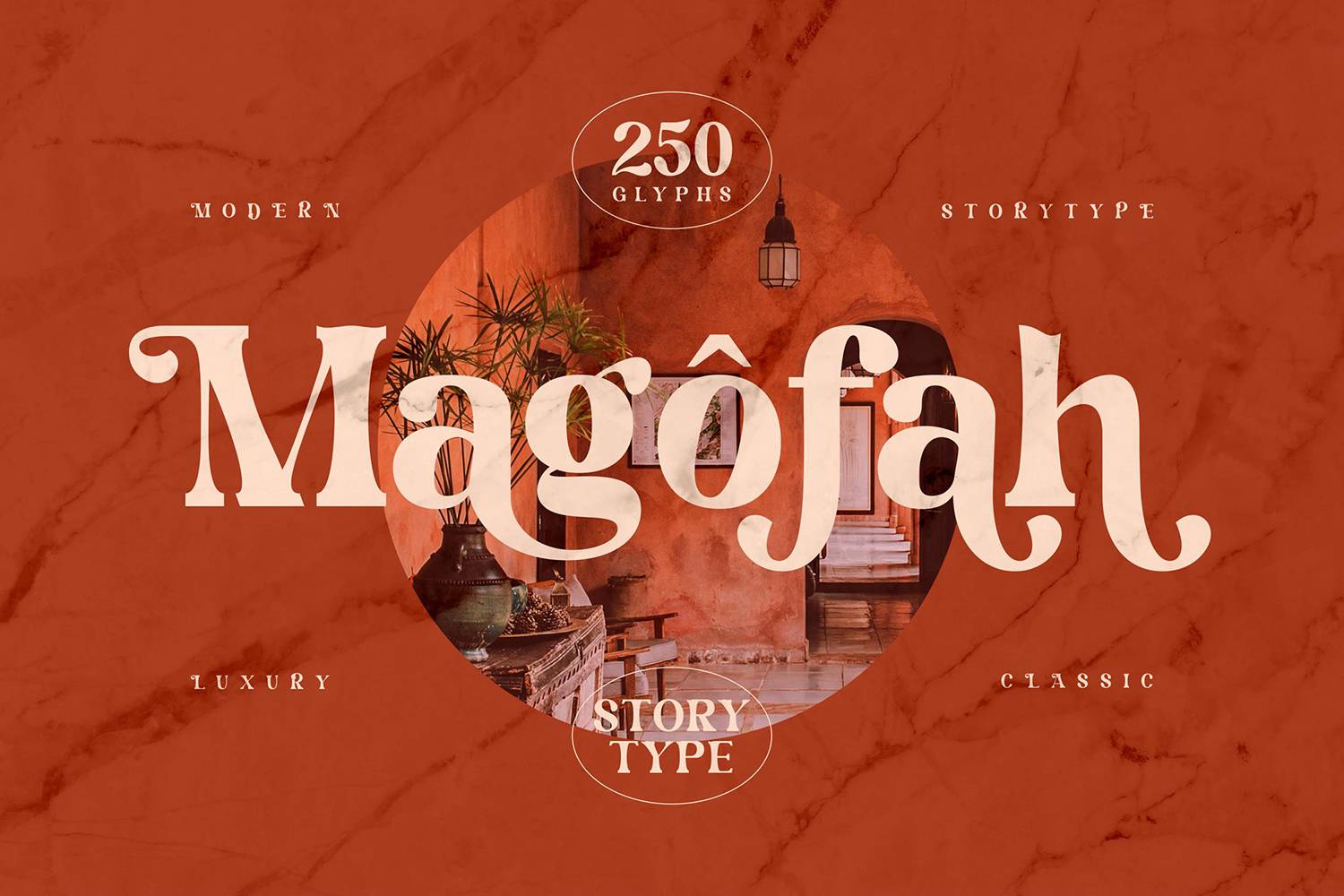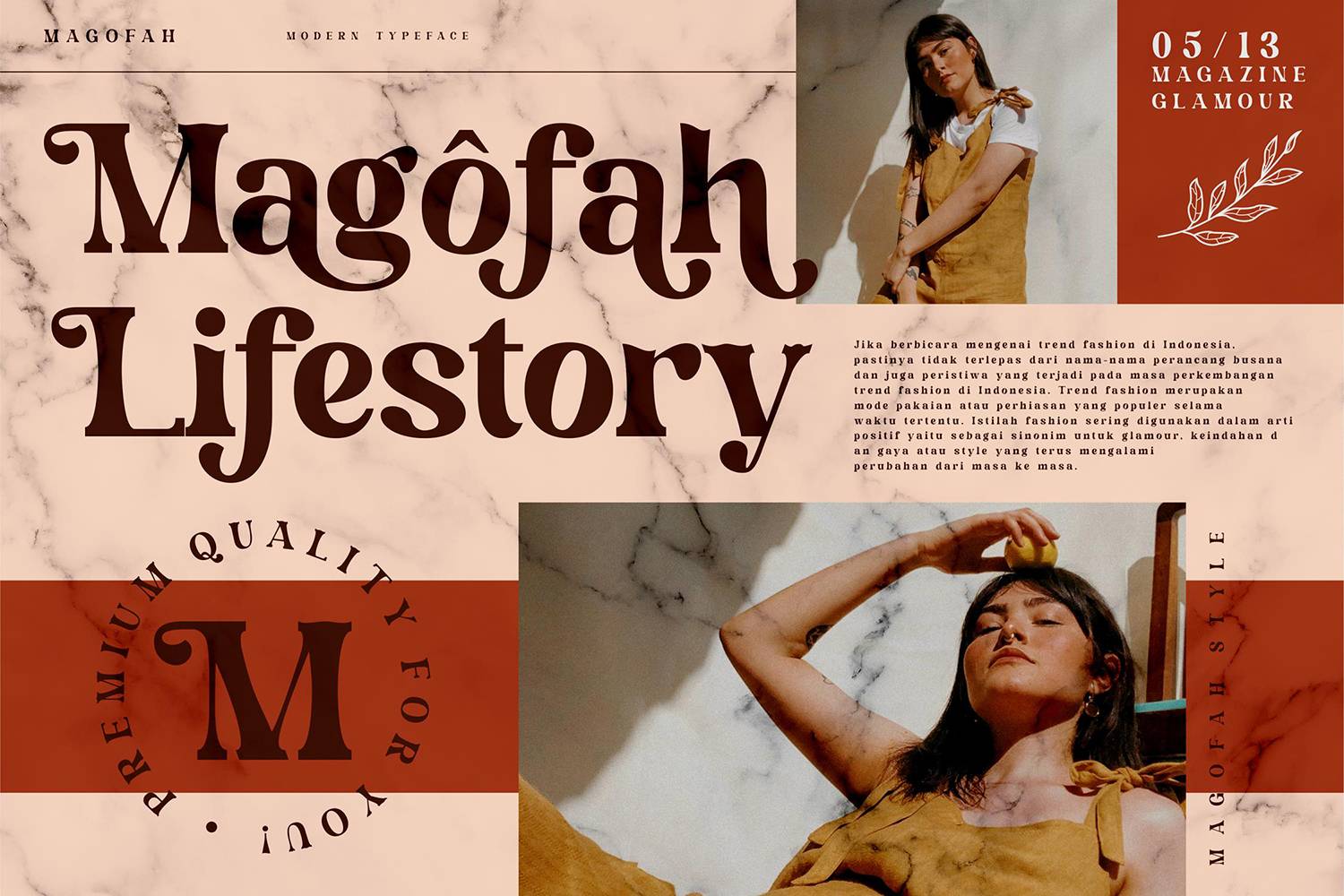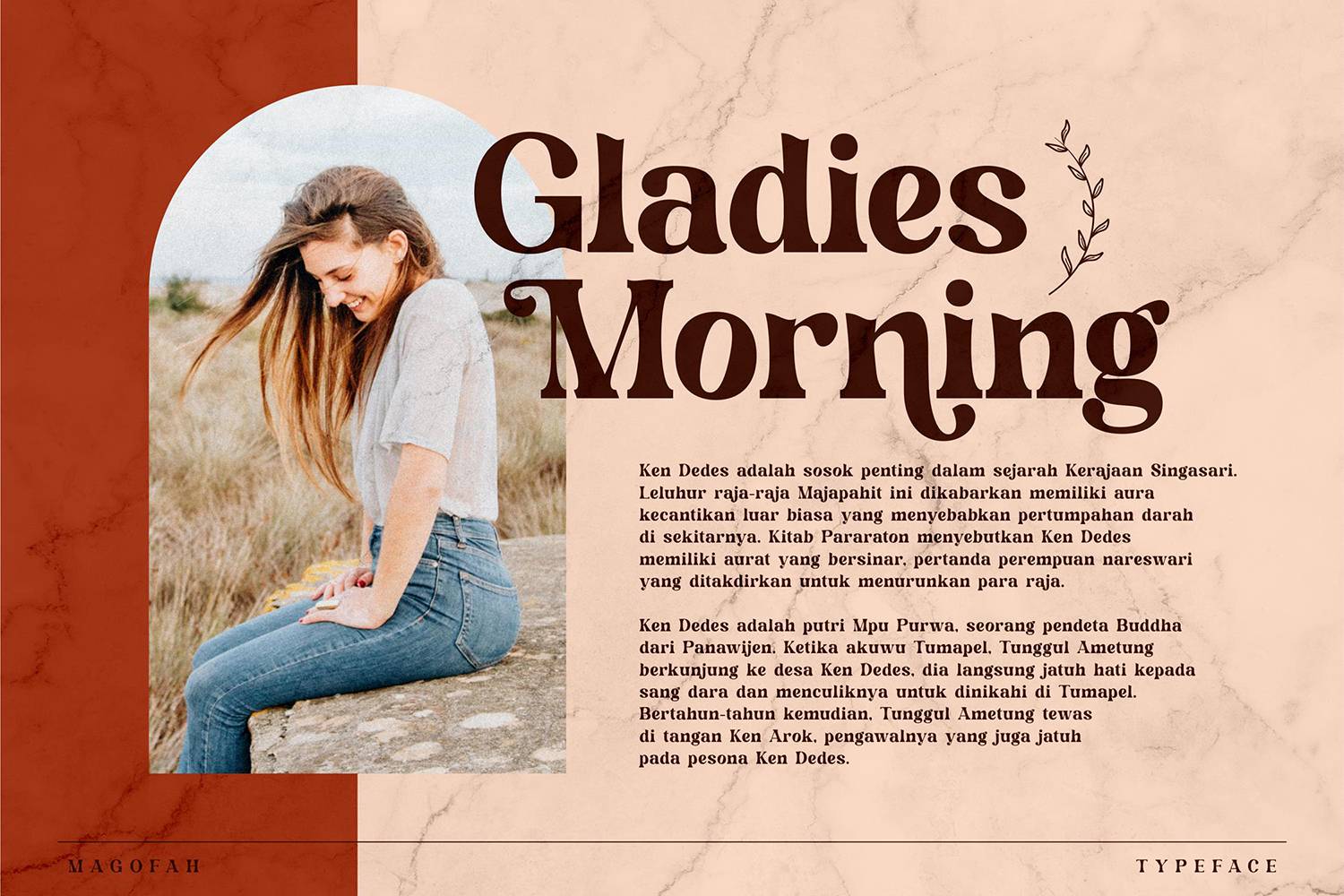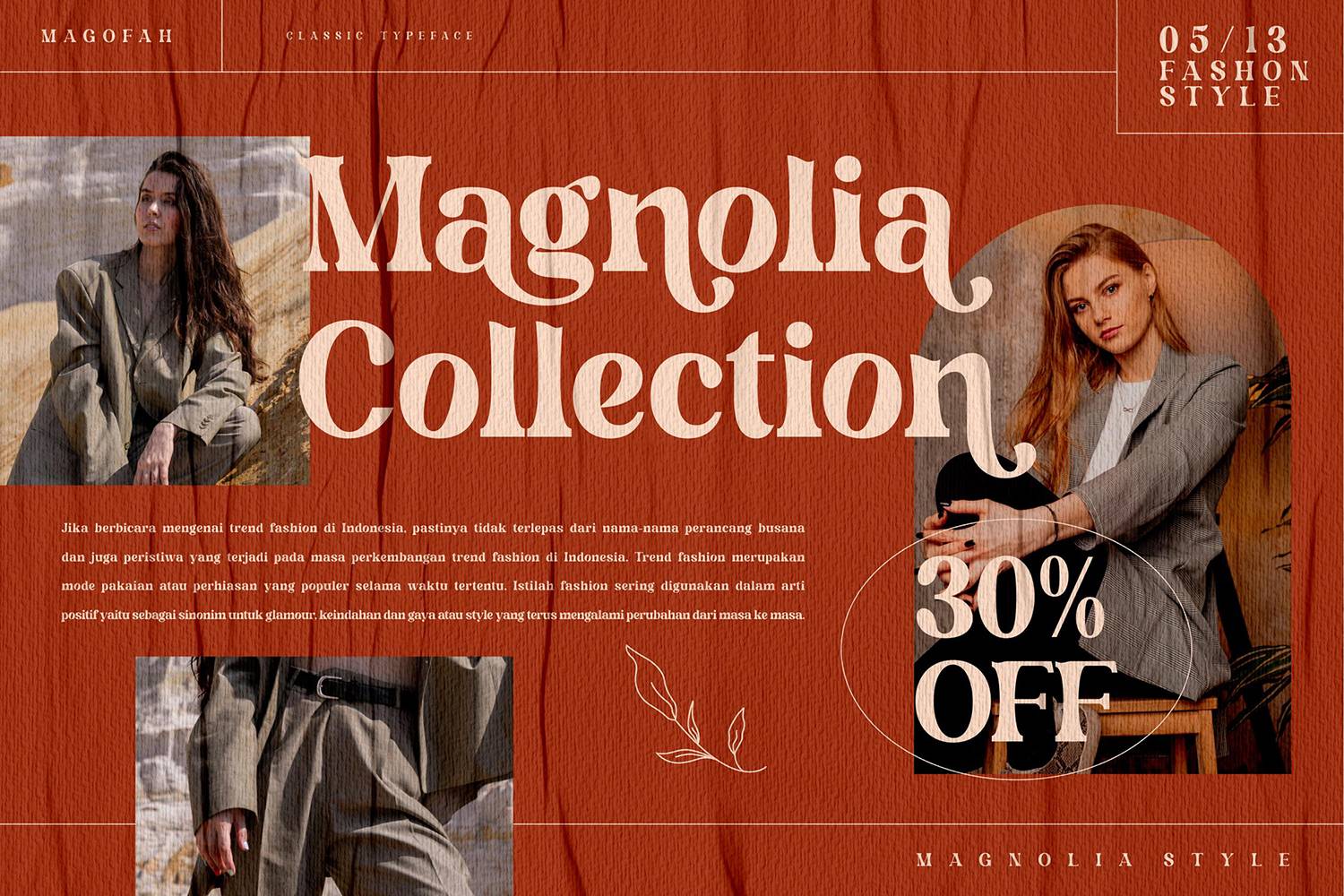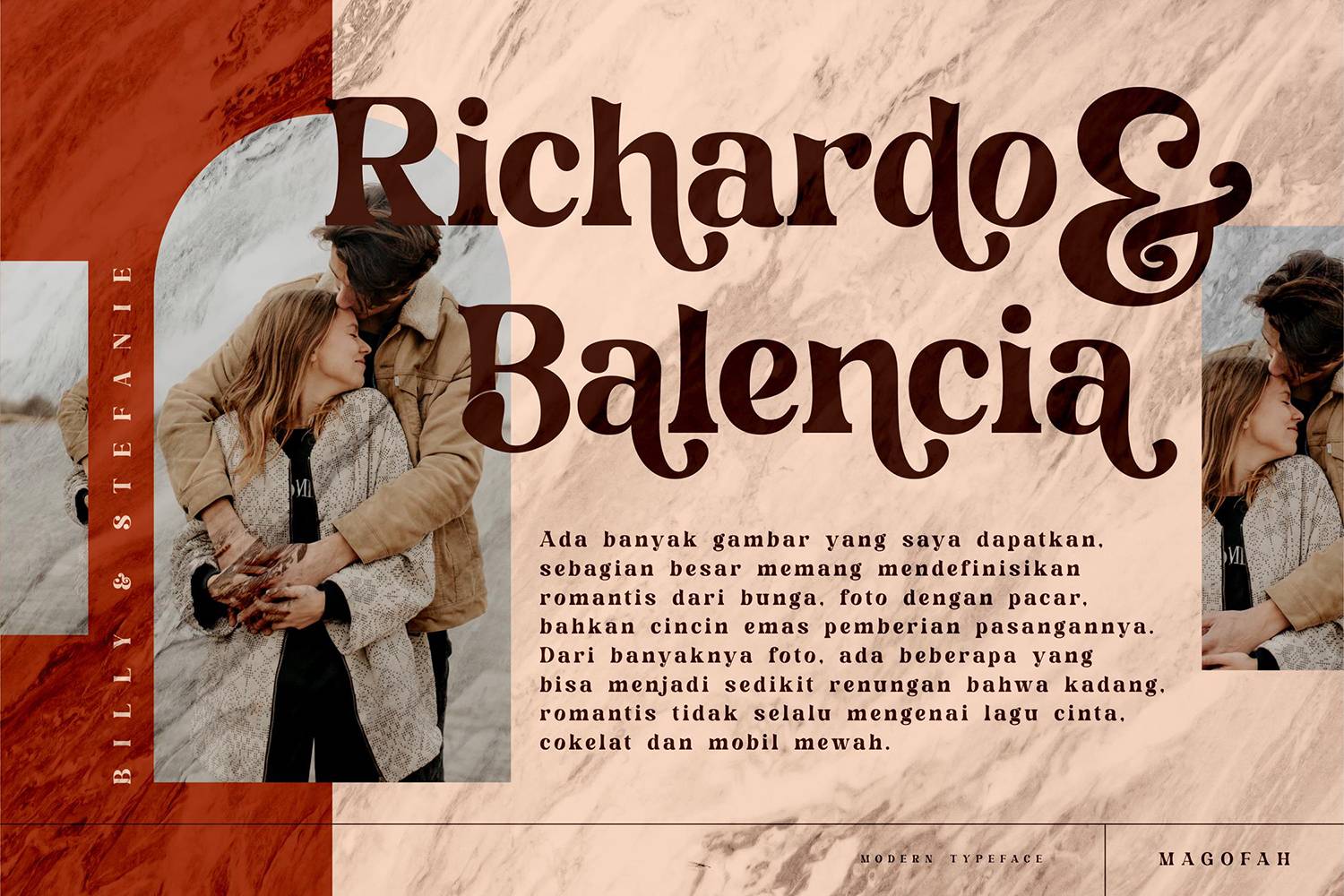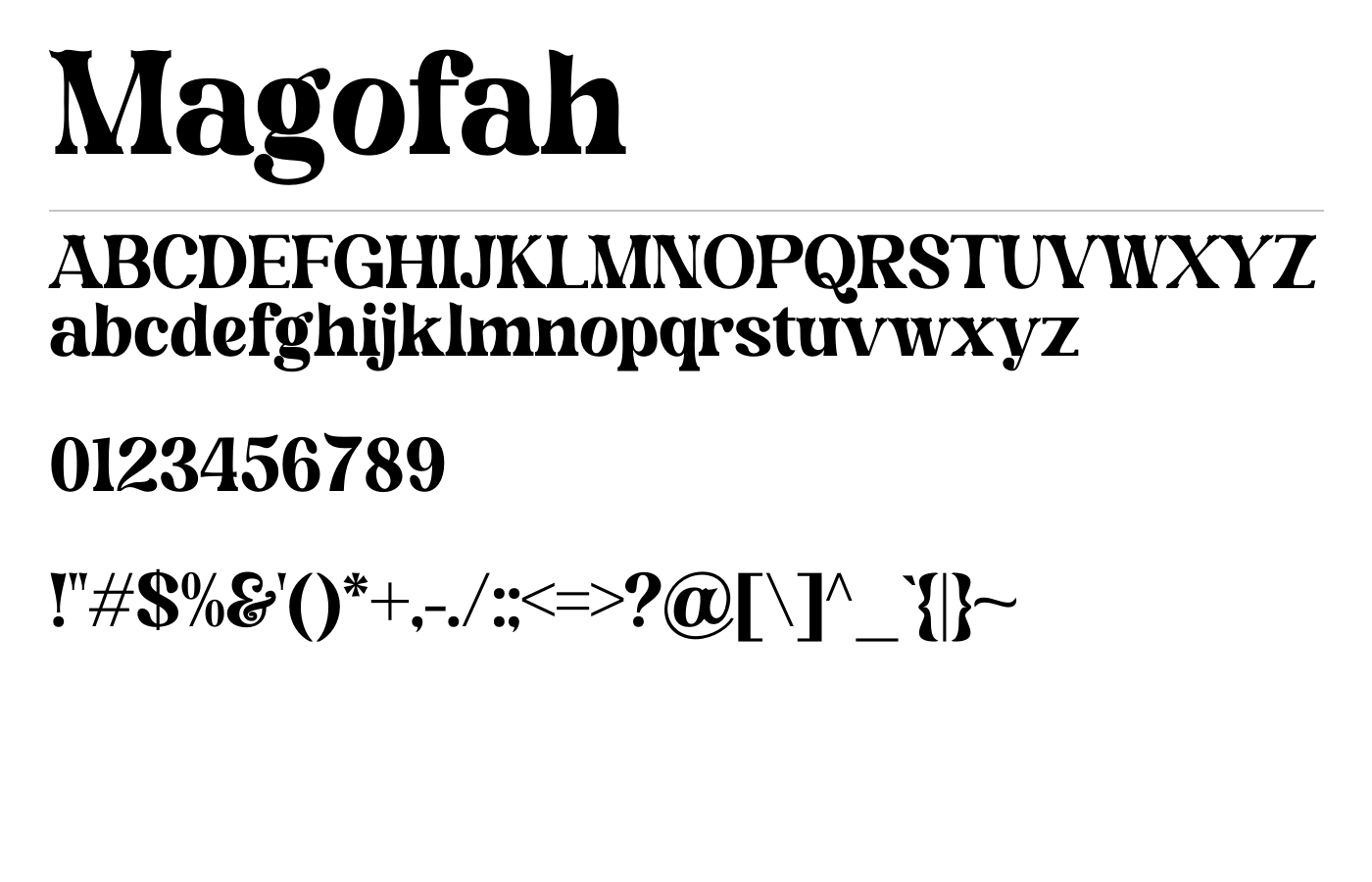
Magofah is a bold serif font with a classic, vintage vibe characterized by its thick, bracketed serifs and high contrast between thick and thin strokes. Its sturdy letterforms and slightly condensed width create a strong, authoritative presence, making it ideal for headlines, logos, and editorial designs that seek to convey elegance with a touch of old-world charm. This font works well in fashion, luxury branding, and print media where a distinguished, timeless feel is desired.
Magofah Font
About Magofah Font